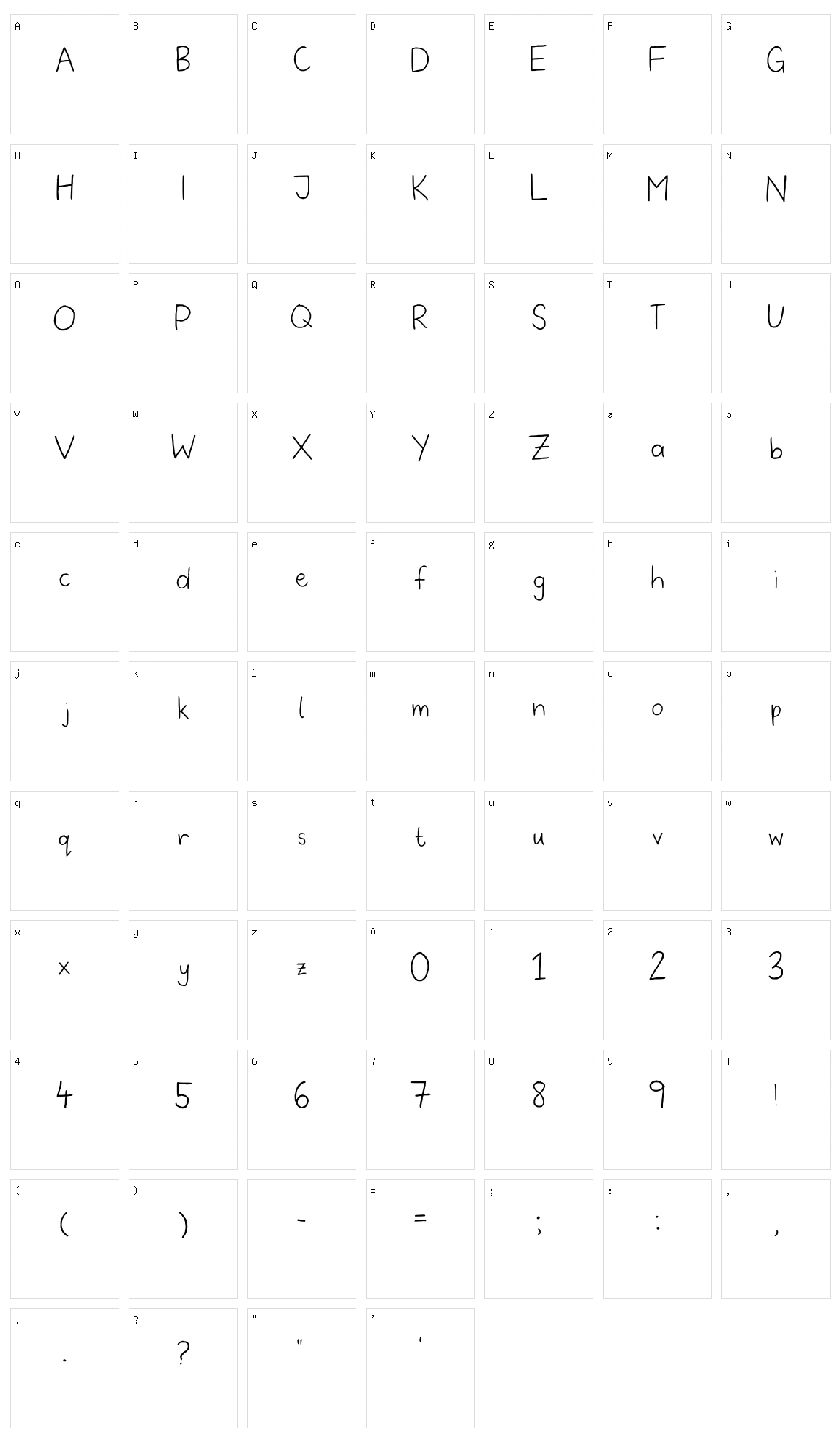
The free font Classic Nosh is carefully designed by Noshin, showcasing a thoughtful balance of creativity and usability and falls under the Script font style. When you download the ZIP file, it contains only 15.58 KB of font files, making it lightweight and quick to download. Please review the license details below to understand permitted usage and distribution rights. If license information is not available, we recommend using this font for personal projects only or contacting the author directly for commercial usage permissions.